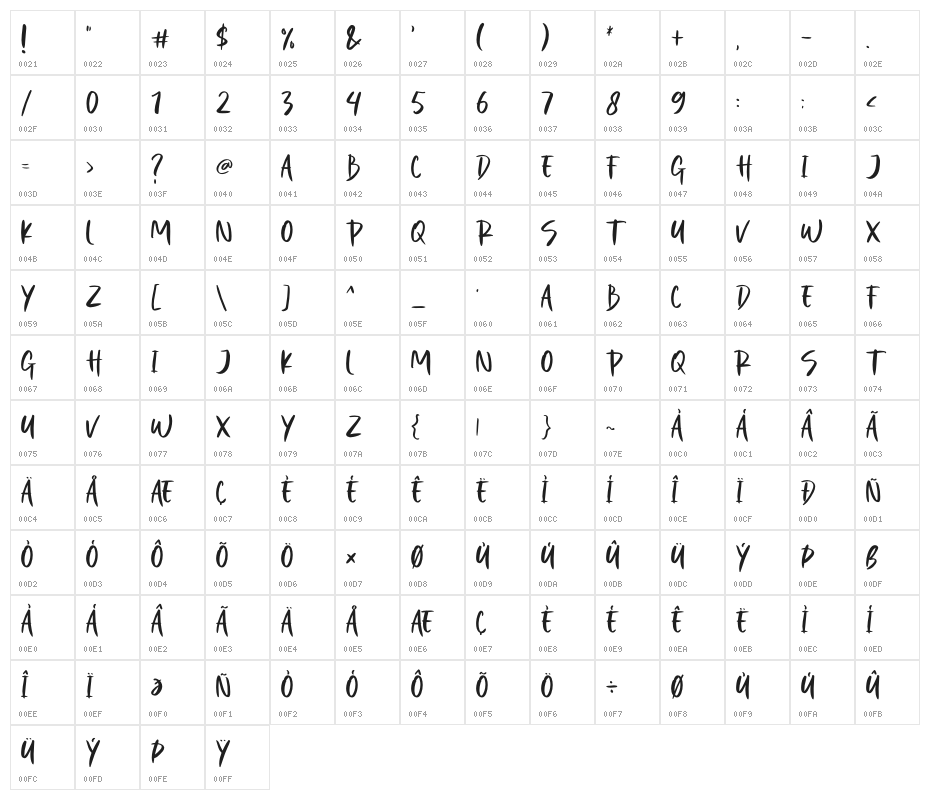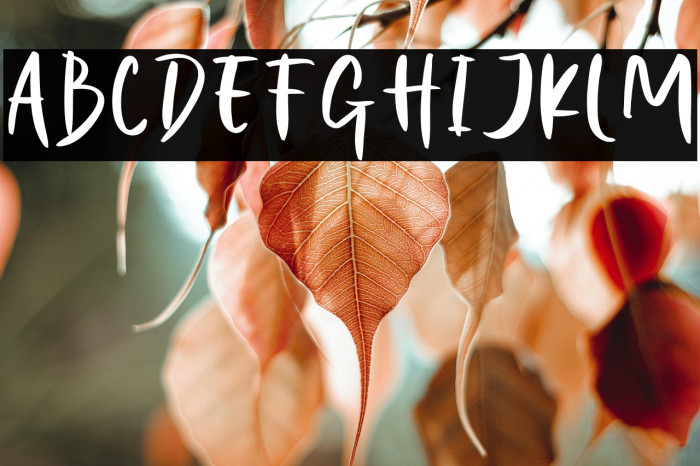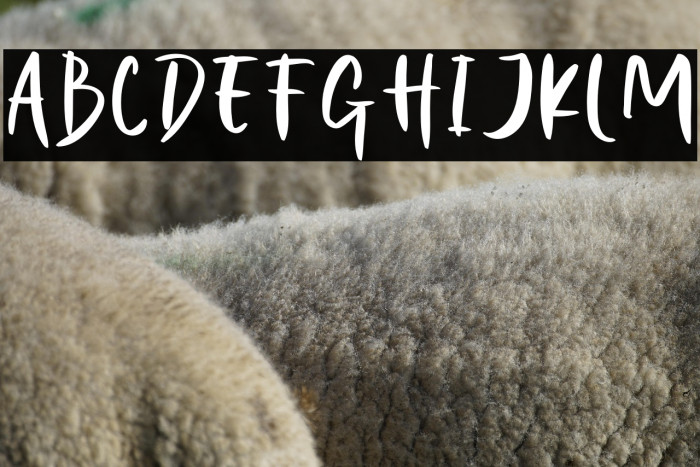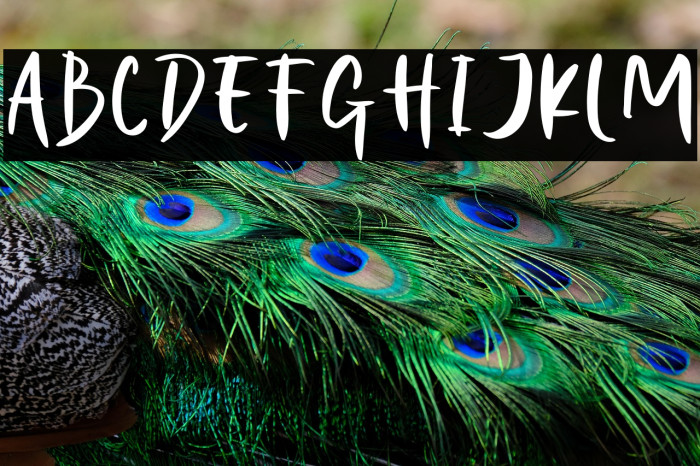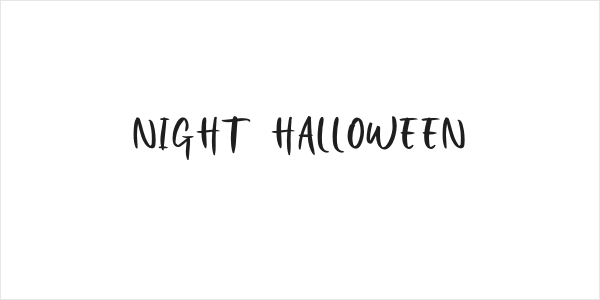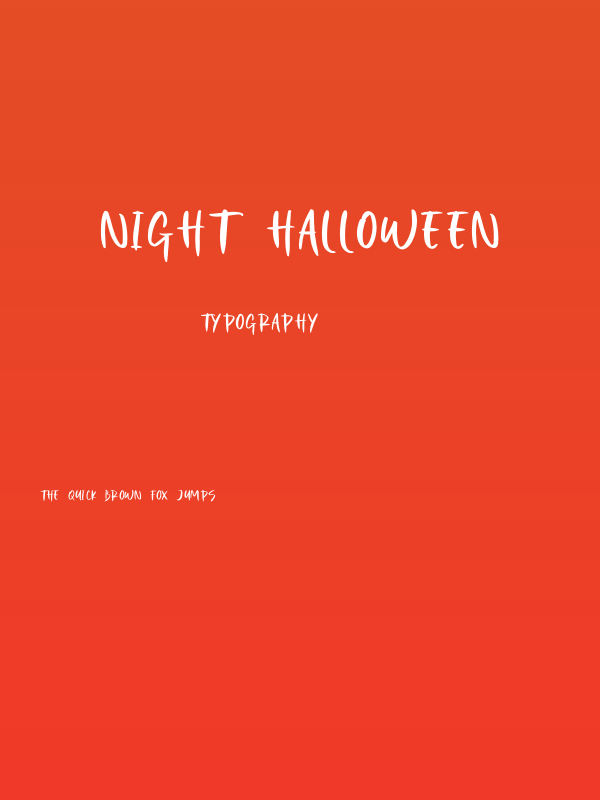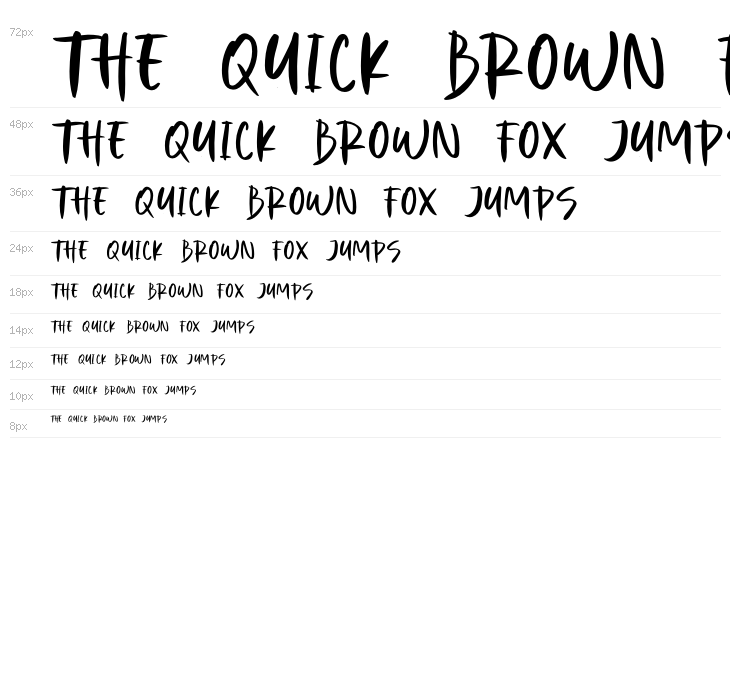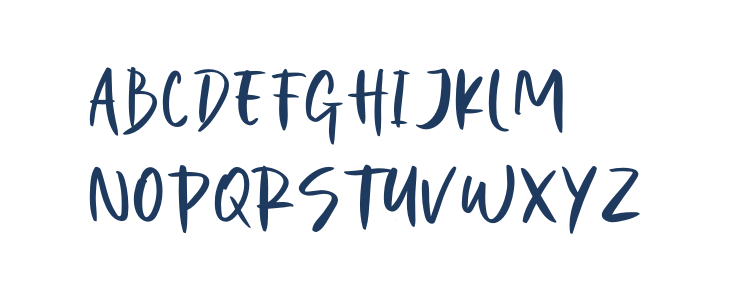
Night Halloween Font
Night Halloween Description
This font exudes a playful and energetic vibe, characterized by its handwritten style with a slightly irregular baseline. The strokes are bold and dynamic, giving each character a lively appearance. The uppercase letters are tall and slightly narrow, while the lowercase letters maintain a consistent flow with a casual flair. Numbers are clear and easy to read, matching the overall style. Special characters are creatively integrated, adding to the font's whimsical charm. This font is perfect for projects that require a touch of personality and fun.
| Proposed Projects | Ideal for greeting cards, playful branding, children's books, and event invitations. |